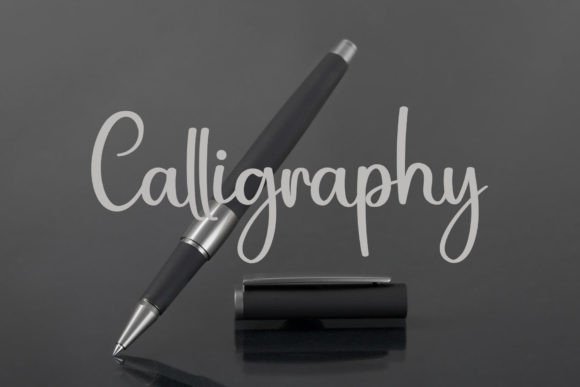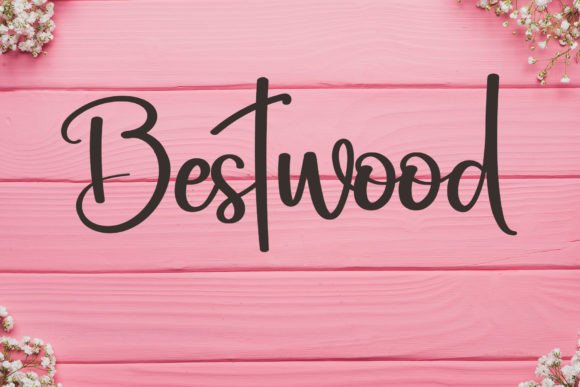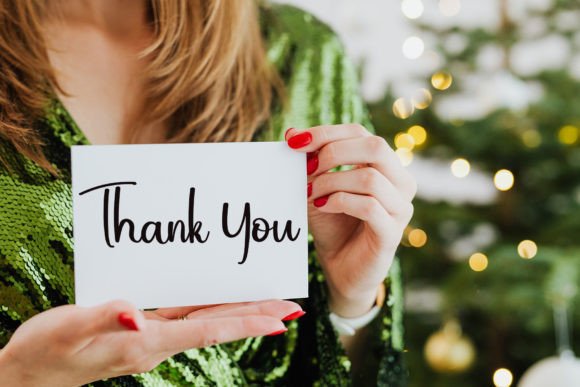
Introducing Graduation Font: Elevate Your Designs with Elegance and Class
Are you a designer or crafter looking for a font that exudes sophistication and style? Look no further than Graduation Font, a trendy handwritten font that brings a contemporary atmosphere and impeccable form to your design projects. Inspired by timeless classic calligraphy, Graduation Font is the perfect addition to any design that requires elegance and class.
What is Graduation Font?
Graduation Font is a beautifully crafted handwritten font that boasts a unique and modern aesthetic. Its sleek lines, flowing curves, and precise letterforms make it an ideal choice for designers seeking to add a touch of sophistication to their work. Whether you’re creating a logo, branding materials, or marketing collateral, Graduation Font is sure to impress.
The Inspiration Behind Graduation Font
Graduation Font draws inspiration from classic calligraphy, a timeless art form that has been perfected over the centuries. The font’s creator aimed to capture the essence of traditional calligraphy and infuse it with a modern twist, resulting in a font that is both elegant and contemporary. The result is a font that is not only visually stunning but also highly versatile.
Key Features of Graduation Font
So, what makes Graduation Font so special? Here are just a few of its key features:
- Trendy and modern aesthetic: Graduation Font boasts a fresh and contemporary look that will elevate your designs and set them apart from the crowd.
- Impeccable form: The font’s precise letterforms and flowing curves ensure that your text looks polished and professional.
- Elegant and classy: Graduation Font adds a touch of sophistication to any design, making it perfect for high-end branding, luxury products, and more.
- Highly versatile: The font can be used for a wide range of design projects, from logos and branding materials to marketing collateral and packaging.
How to Use Graduation Font in Your Designs
Graduation Font is incredibly easy to use and can be applied to a variety of design projects. Here are just a few ideas to get you started:
- Logos and branding materials: Use Graduation Font to create a sophisticated and memorable logo that will help your brand stand out.
- Marketing collateral: Add a touch of elegance to your marketing materials, such as brochures, flyers, and business cards.
- Packaging design: Use Graduation Font to create eye-catching packaging that will help your product stand out on store shelves.
- Stationery and invitations: Add a touch of sophistication to your stationery and invitations with Graduation Font.
Tips for Getting the Most Out of Graduation Font
To get the most out of Graduation Font, here are a few tips to keep in mind:
- Experiment with different sizes and colors: Graduation Font looks great in a variety of sizes and colors, so don’t be afraid to experiment and find the perfect combination for your design.
- Pair with other fonts: Graduation Font pairs well with other fonts, so try combining it with a bold or sans-serif font to add contrast and interest to your design.
- Use it sparingly: While Graduation Font is elegant and classy, it can be overwhelming if used too much. Use it sparingly to add a touch of sophistication to your design.
| Font Name | Graduation Font |